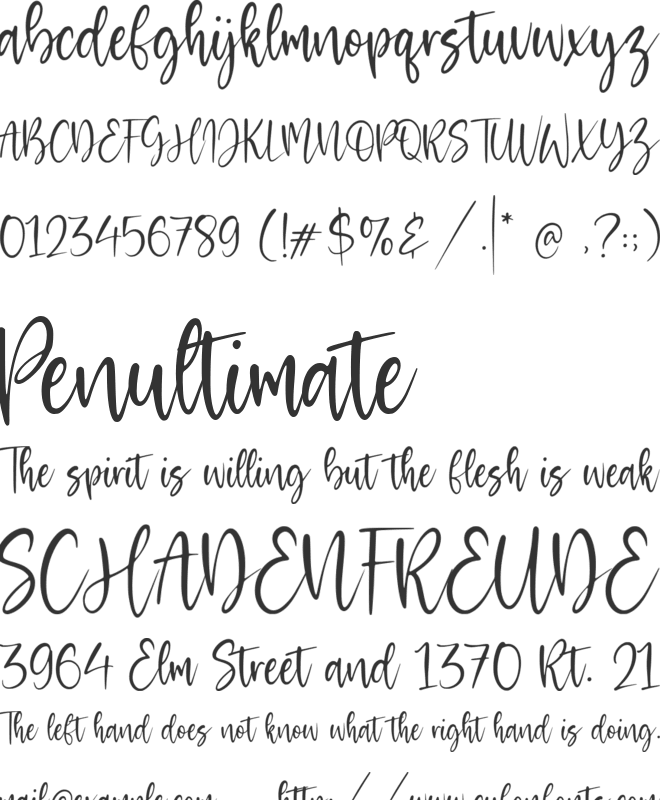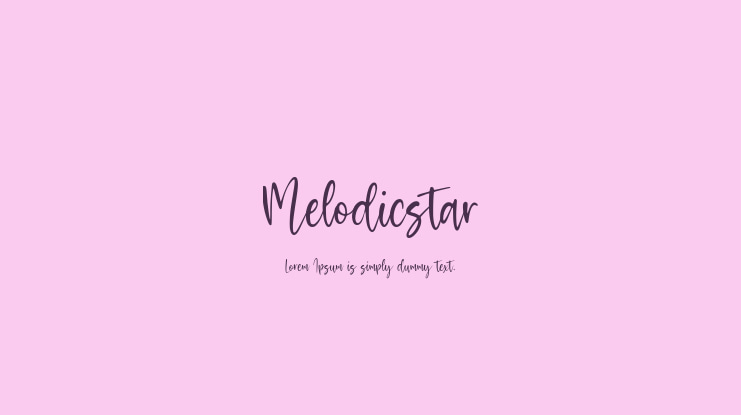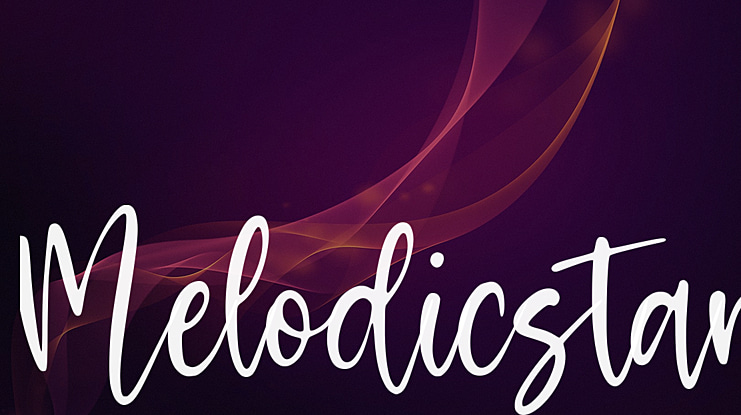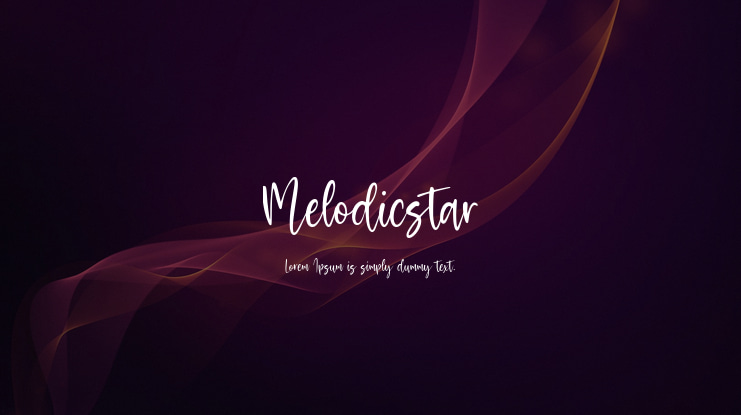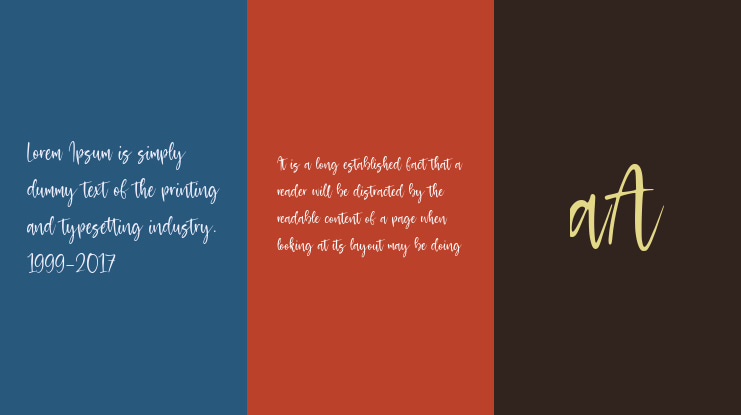
Melodicstar Font
Balpirick Studio
Melodicstar is a Modern Calligraphy Font.
Melodicstar is a lovely script font featuring charming, playful characters that seem to dance along the baseline. Add this font to your most creative ideas, and notice how it makes them stand out!